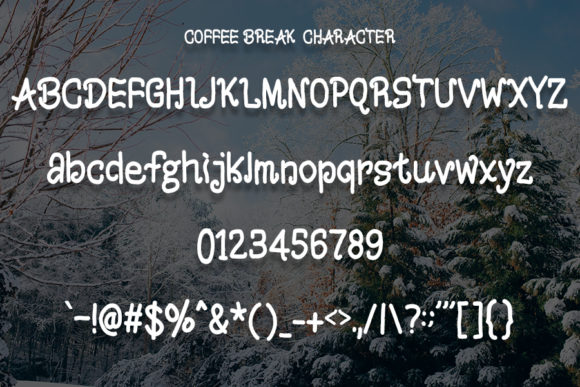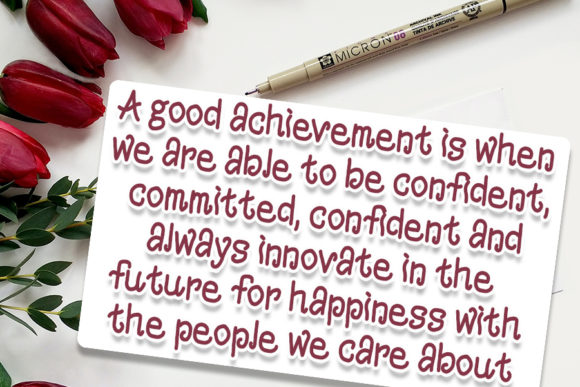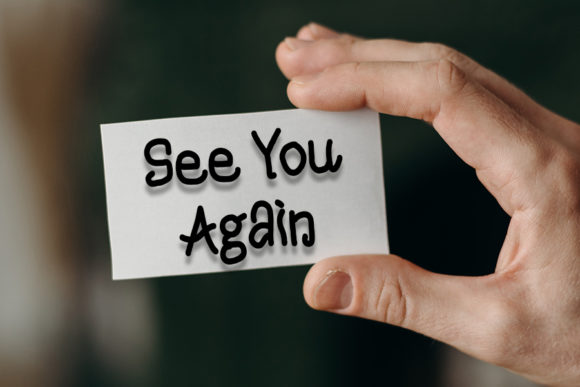
Coffee Break Font: The Perfect Handwritten Font for Designers and Crafters
Are you a designer, crafter, or digital artist looking for a unique and authentic handwritten font to add a personal touch to your projects? Look no further than the Coffee Break Font! This charming font is perfect for a variety of creative endeavors, from crafting and digital designing to presentations and greeting card making.
What is Coffee Break Font?
Coffee Break Font is an authentic handwritten font that features the perfect amount of quirkiness. Its unique and playful style makes it stand out from more traditional fonts, adding a touch of personality to any project. The font is carefully crafted to resemble handwritten text, with subtle imperfections and variations that give it a warm and inviting feel.
Features of Coffee Break Font
Coffee Break Font has several features that make it an ideal choice for designers and crafters:
- Authentic Handwritten Style: The font is designed to mimic the look of handwritten text, with a natural and effortless feel.
- Quirky and Playful: The font features a unique and playful style that adds a touch of whimsy to any project.
- Versatile: Coffee Break Font is perfect for a variety of creative endeavors, from crafting and digital designing to presentations and greeting card making.
- Easily Readable: Despite its quirky style, the font is easily readable, making it perfect for use in a variety of contexts.
Uses for Coffee Break Font
Coffee Break Font is a versatile font that can be used in a variety of creative projects, including:
- Crafting: Use Coffee Break Font to add a personal touch to your crafting projects, such as scrapbooking, card making, and journaling.
- Digital Designing: The font is perfect for use in digital designs, such as social media graphics, blog posts, and website headers.
- Presentations: Add a touch of personality to your presentations with Coffee Break Font, making them more engaging and memorable.
- Greeting Card Making: Use the font to create unique and personalized greeting cards for special occasions.
Benefits of Using Coffee Break Font
Using Coffee Break Font in your creative projects offers several benefits:
- Adds Personality: The font adds a touch of personality and whimsy to any project, making it stand out from more traditional designs.
- Creates Emotional Connection: The handmade feel of the font creates an emotional connection with the viewer, making your project more relatable and engaging.
- Enhances Creativity: Coffee Break Font inspires creativity and playfulness, making it perfect for use in artistic and creative projects.
Tips for Using Coffee Break Font
Here are some tips for using Coffee Break Font in your creative projects:
- Pair with Other Fonts: Experiment with pairing Coffee Break Font with other fonts to create a unique and visually appealing design.
- Use in Headlines and Titles: Use the font in headlines and titles to add a touch of personality and whimsy to your design.
- Experiment with Colors: Try pairing the font with different colors to create a unique and eye-catching design.
Coffee Break Font is a unique and authentic handwritten font that is perfect for designers, crafters, and digital artists looking to add a personal touch to their projects. With its quirky and playful style, versatility, and easily readable text, it’s an ideal choice for a variety of creative endeavors. Whether you’re crafting, designing, or creating presentations, Coffee Break Font is sure to inspire your creativity and add a touch of personality to your work.